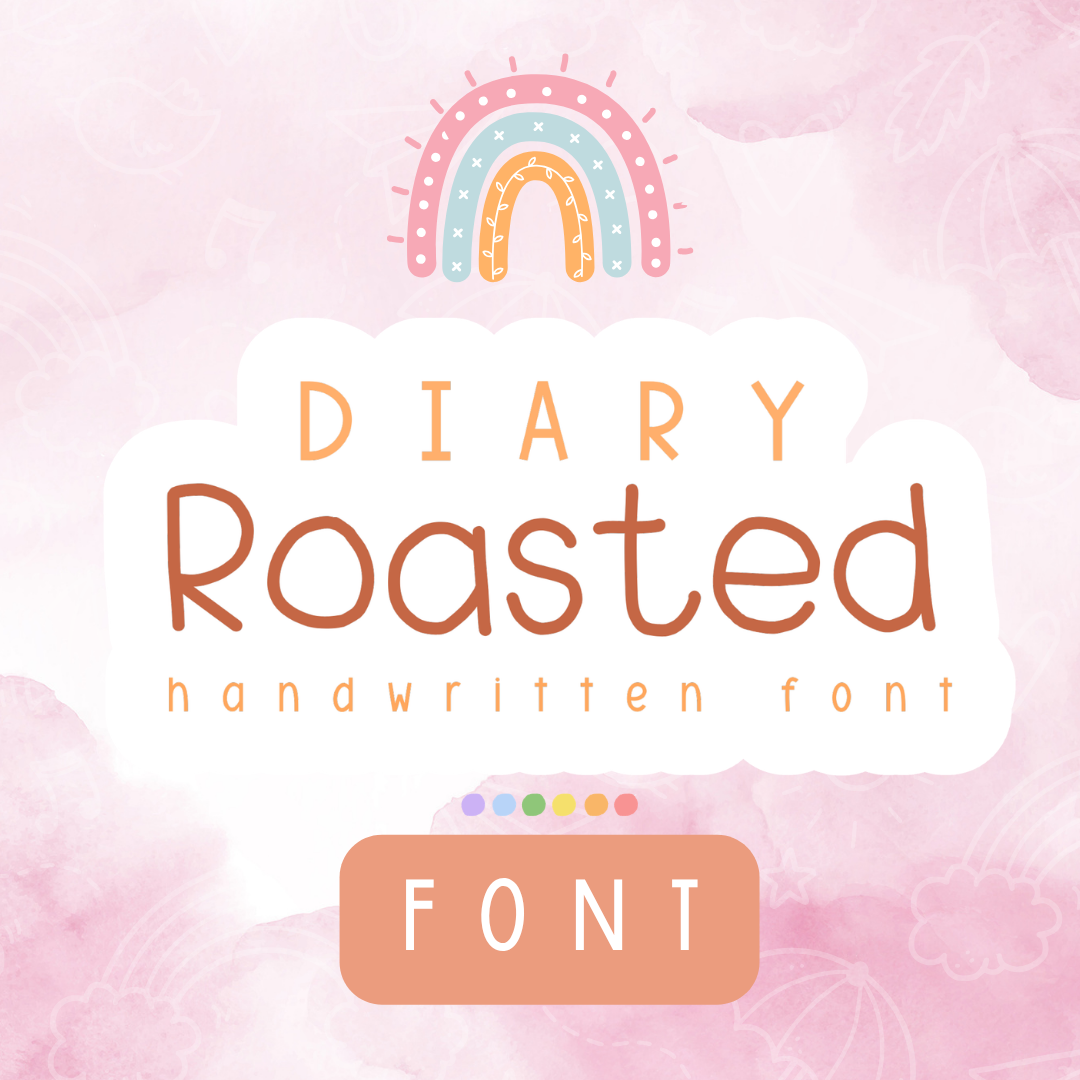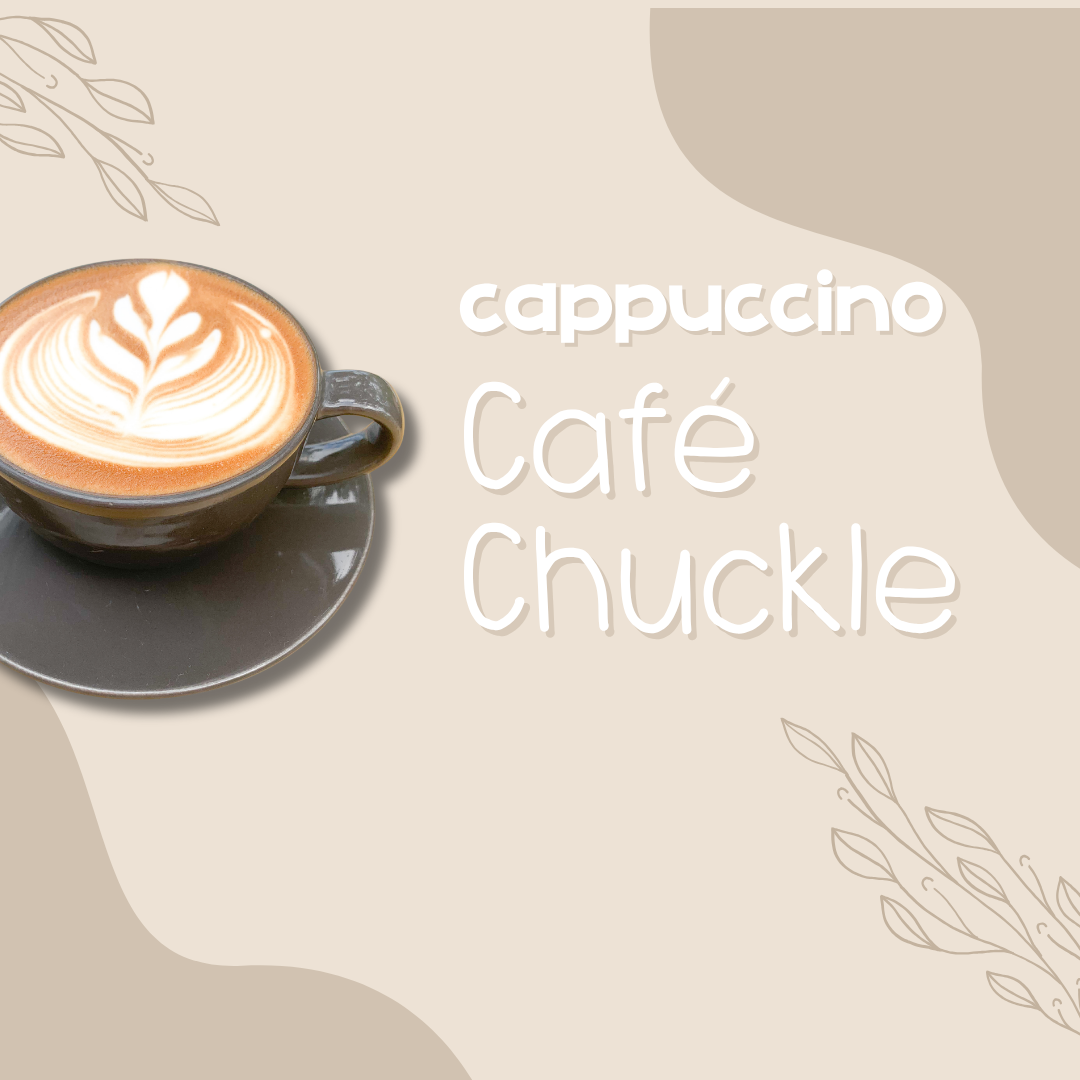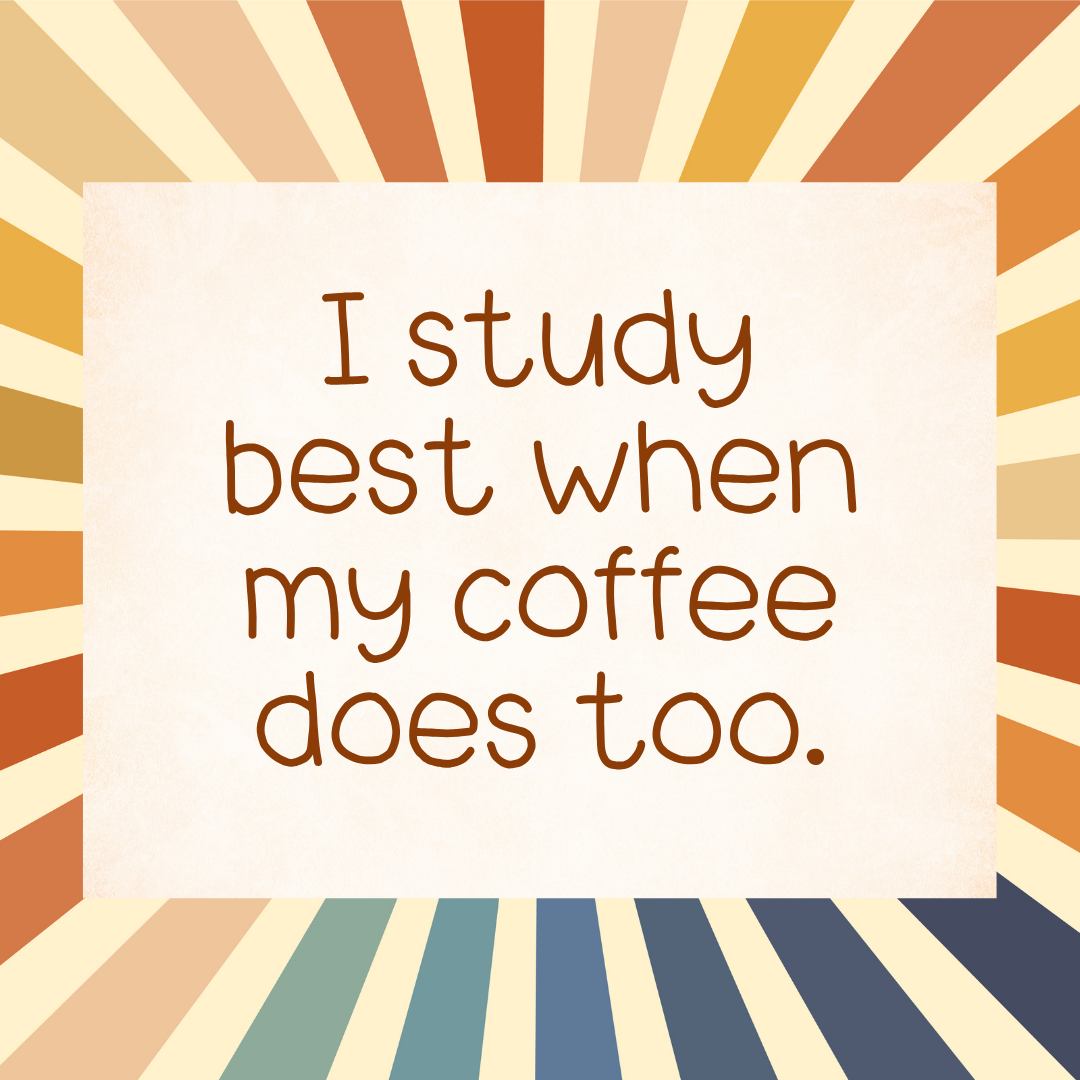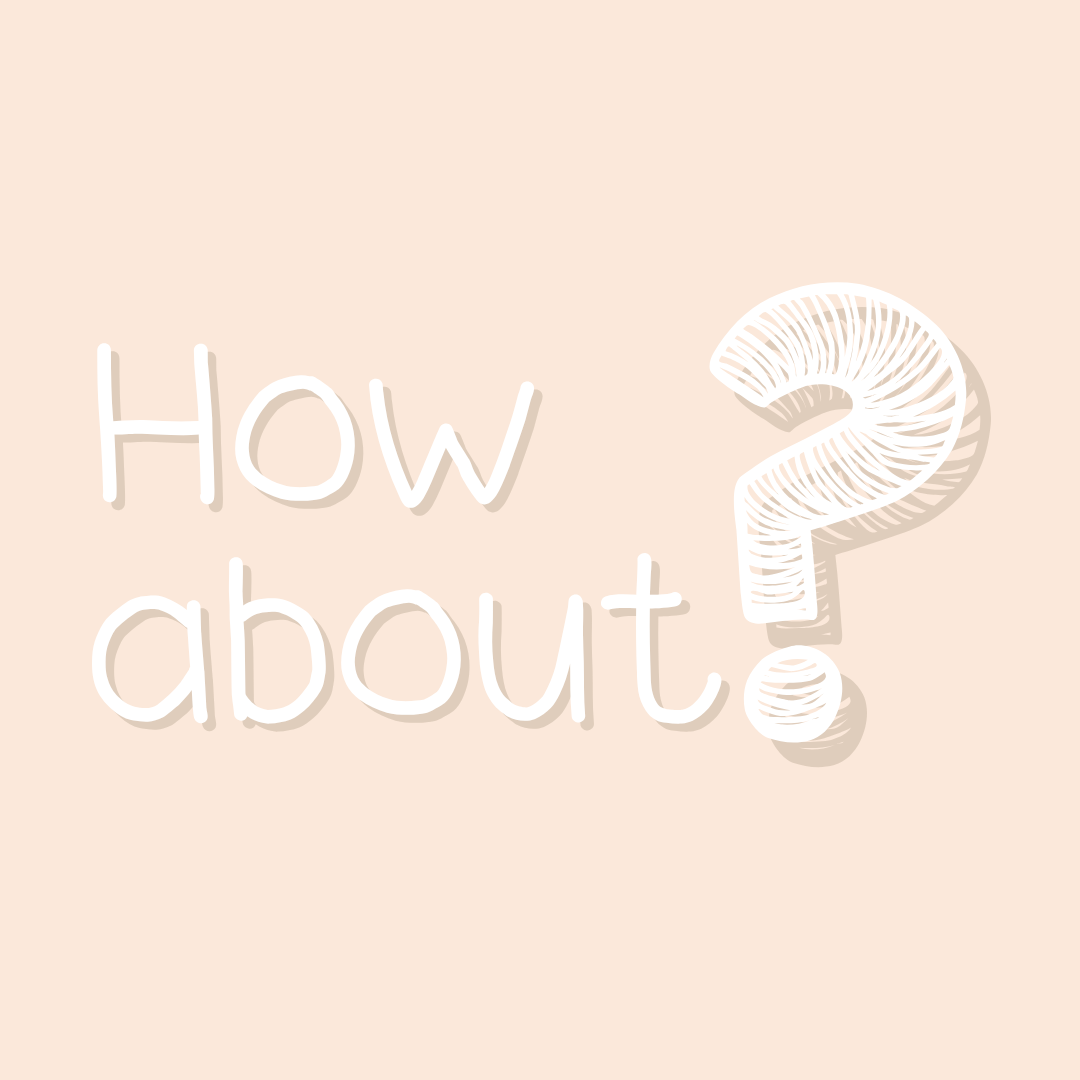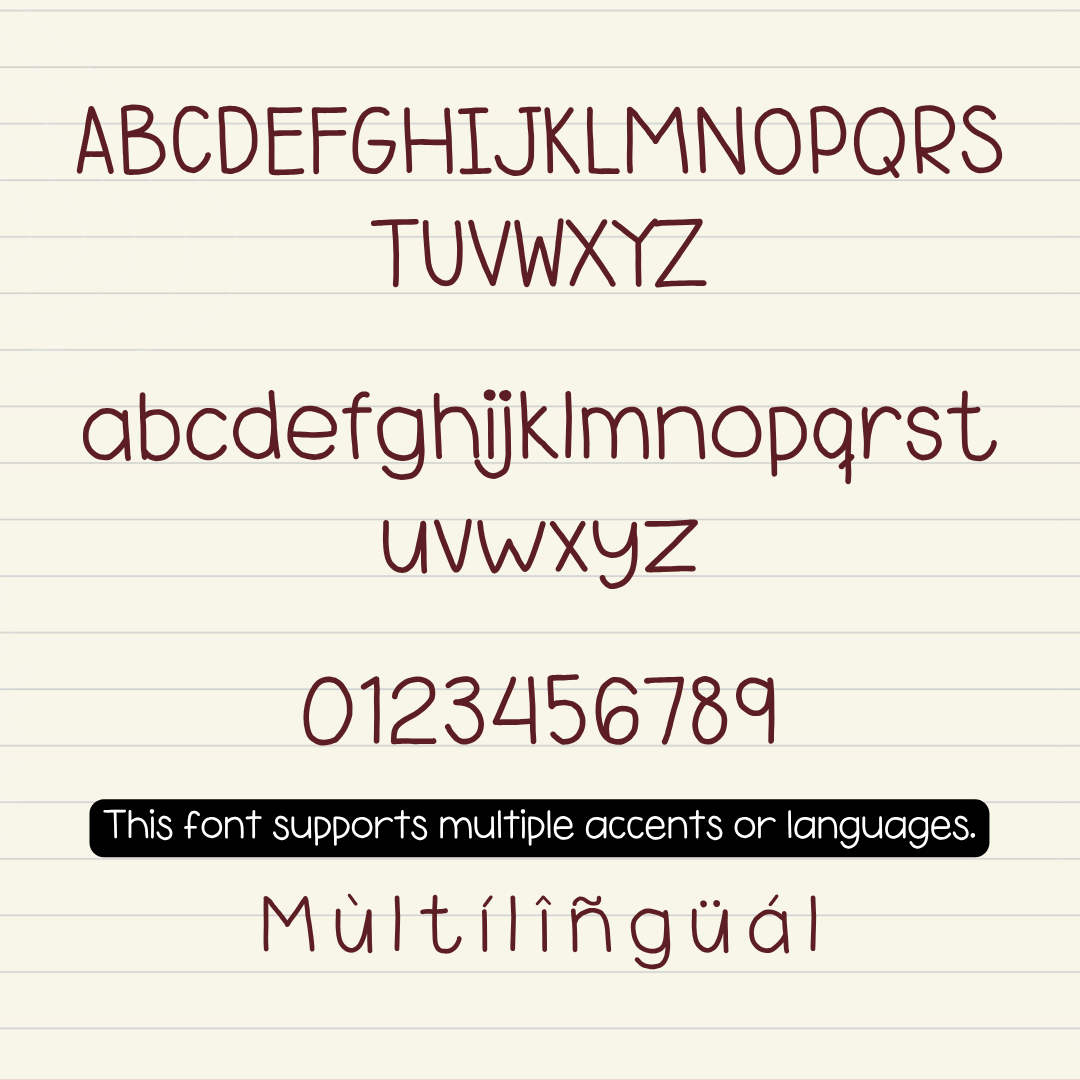
If you are looking for a staple font that feels like your favorite teacher handwriting but stays perfectly tidy, Diary Roasted is about to be your new go-to. It features clean, uniform line weights and wide, open loops that make each letter super approachable and incredibly clear. Standing straight and sitting evenly along the baseline, it gives you that effortless, everyday hand-lettered look without any of the messy clutter.
It is absolutely ideal for typing out daily reading passages, spelling tests, student worksheets, and morning meeting slides where legibility is your number one priority. It works well with your computer apps like Canva, MS Office, or Adobe on your desktop, and pairs beautifully with Procreate and GoodNotes on your iPad. Whether you’re crafting weekly printables for your own sweet classroom or designing a brand new product line for your teacher shop, this cozy print font brings a warm, familiar vibe to your creative toolkit.